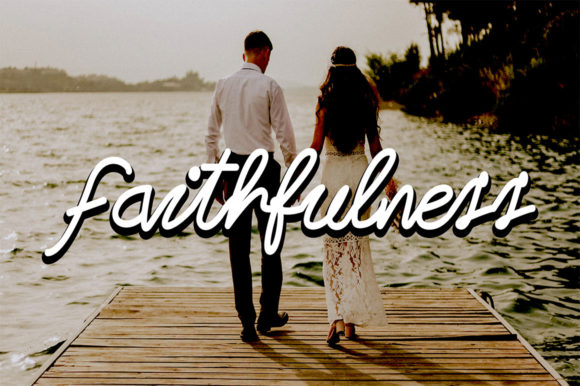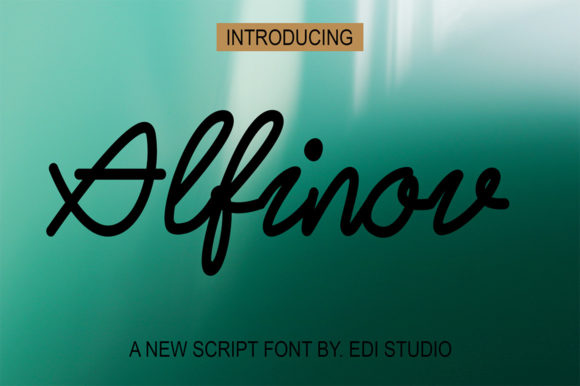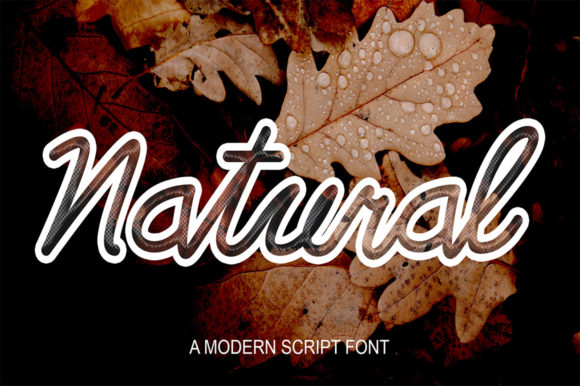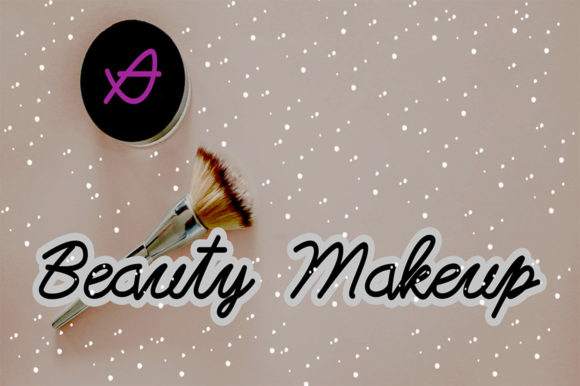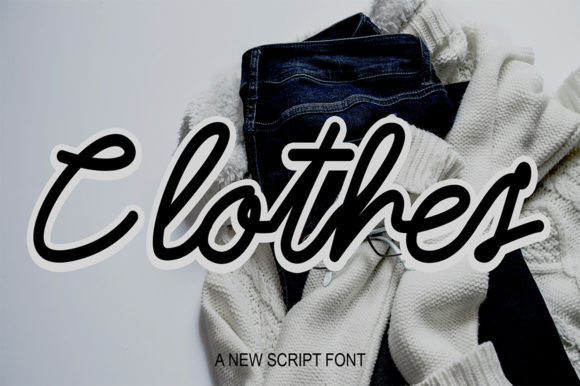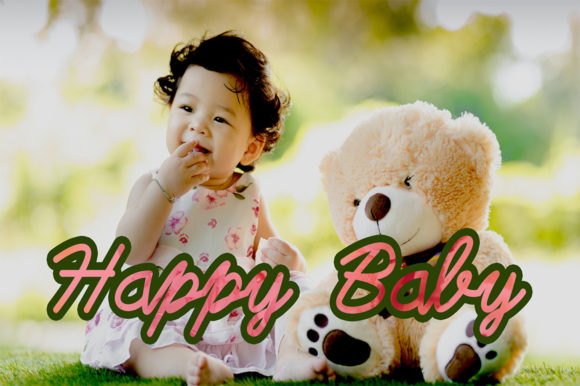
Introducing Alfinov Font: A Timeless Vintage Script Font
Are you a designer or crafter looking for a font that can elevate your creations to the next level? Look no further than Alfinov Font, a stunning vintage-styled script font that is sure to become an invaluable asset in your font library. With its unique blend of classic elegance and modern charm, Alfinov Font is the perfect choice for a wide range of design projects, from branding and advertising to packaging and digital media.
The Characteristics of Alfinov Font
Alfinov Font is a beautifully crafted script font that boasts a range of distinctive characteristics, making it stand out from other fonts in its class. Some of its key features include:
- Vintage styling: Alfinov Font has a distinctly vintage feel, with elegant swashes and refined letterforms that evoke a bygone era.
- Beautiful script: The font features a beautiful, flowing script that is perfect for creating eye-catching headlines and titles.
- Highly versatile: Whether you’re designing a logo, brochure, or social media graphic, Alfinov Font is highly versatile and can be used for a wide range of design projects.
- Easy to read: Despite its ornate styling, Alfinov Font is surprisingly easy to read, making it perfect for use in both print and digital media.
The Benefits of Using Alfinov Font
So why should you choose Alfinov Font for your design projects? Here are just a few benefits of using this amazing font:
- Adds elegance and sophistication: Alfinov Font adds a touch of elegance and sophistication to any design project, making it perfect for high-end brands and luxury products.
- Stand out from the crowd: With its unique vintage styling and beautiful script, Alfinov Font is sure to help your design project stand out from the crowd.
- Perfect for branding and advertising: The font’s elegant styling and high readability make it perfect for use in branding and advertising campaigns.
- Great for crafters and small business owners: Alfinov Font is also a great choice for crafters and small business owners looking to add a personal touch to their branding and marketing materials.
How to Use Alfinov Font
Using Alfinov Font is easy, and it can be incorporated into a wide range of design projects. Here are a few ideas to get you started:
- Logos and branding: Use Alfinov Font to create a stunning logo or brand identity that reflects your business’s values and personality.
- Advertising and marketing: The font’s elegant styling and high readability make it perfect for use in advertising and marketing campaigns.
- Packaging and product design: Add a touch of elegance and sophistication to your product packaging with Alfinov Font.
- Digital media: Use Alfinov Font to create eye-catching social media graphics, blog posts, and other digital content.
Tips for Getting the Most Out of Alfinov Font
To get the most out of Alfinov Font, here are a few tips to keep in mind:
- Experiment with different colors and textures: Alfinov Font looks great in a range of colors and textures, so don’t be afraid to experiment and find the perfect combination for your design project.
- Use it sparingly: While Alfinov Font is a beautiful font, it can be overwhelming if used too much. Use it sparingly to create a focal point in your design.
- Pair it with other fonts: Alfinov Font pairs well with a range of other fonts, so don’t be afraid to experiment with different font combinations to find the perfect look for your design project.
In conclusion, Alfinov Font is a stunning vintage-styled script font that is sure to become an invaluable asset in your font library. With its unique blend of classic elegance and modern charm, it’s the perfect choice for a wide range of design projects, from branding and advertising to packaging and digital media. So why wait? Download Alfinov Font today and start elevating your design projects to the next level!